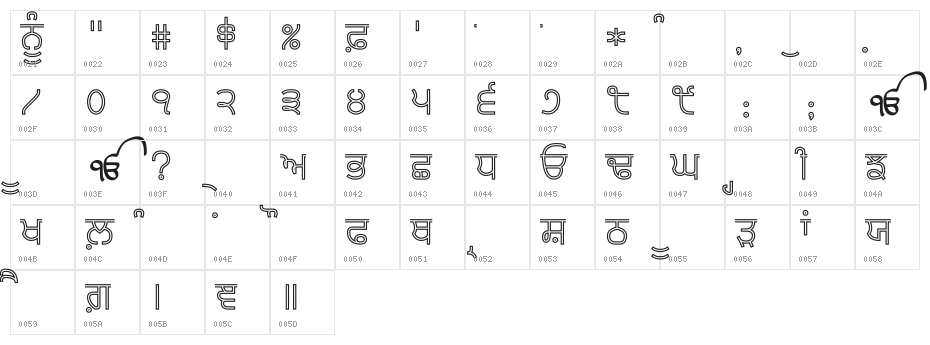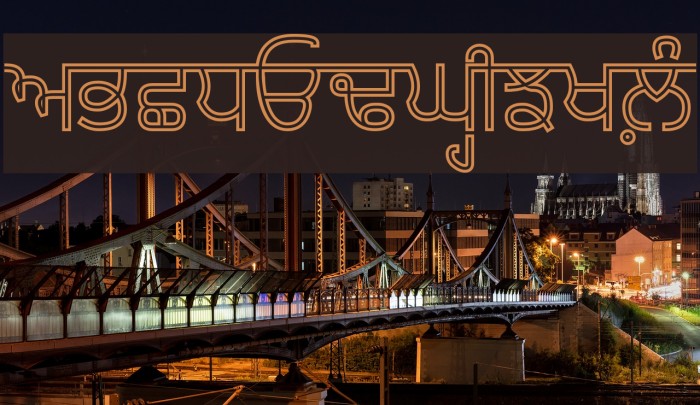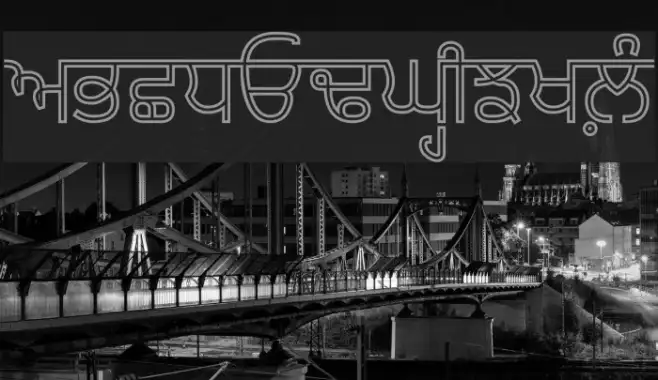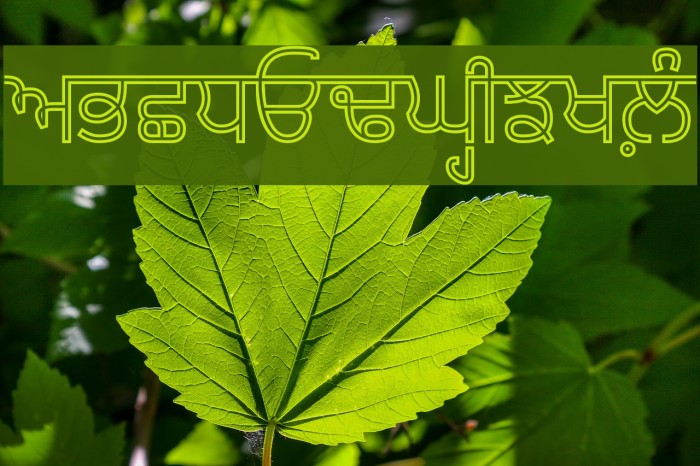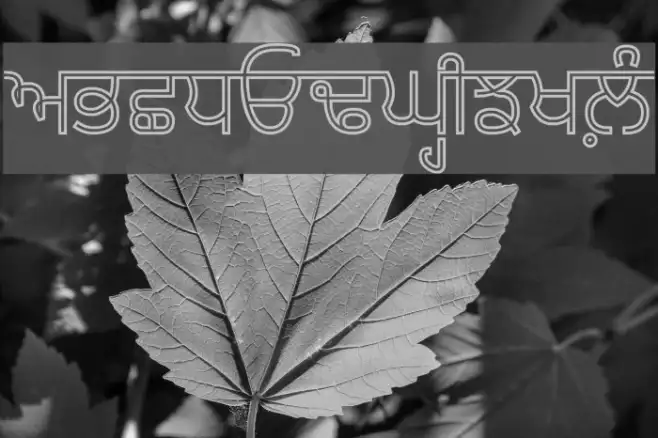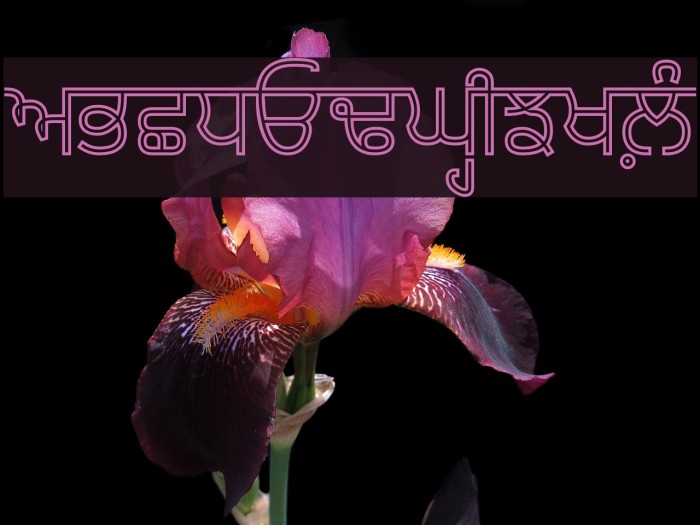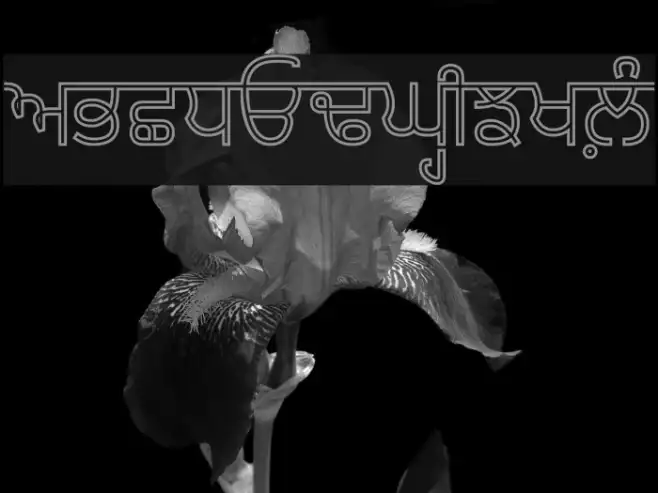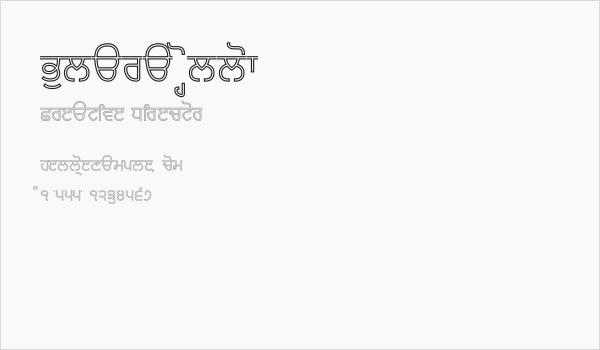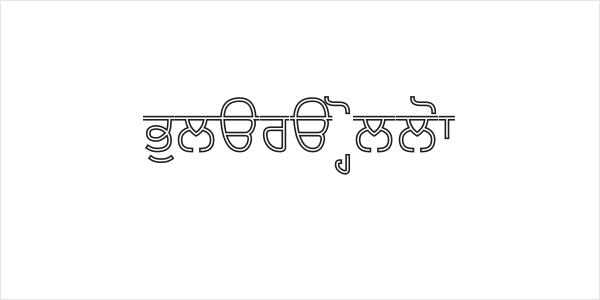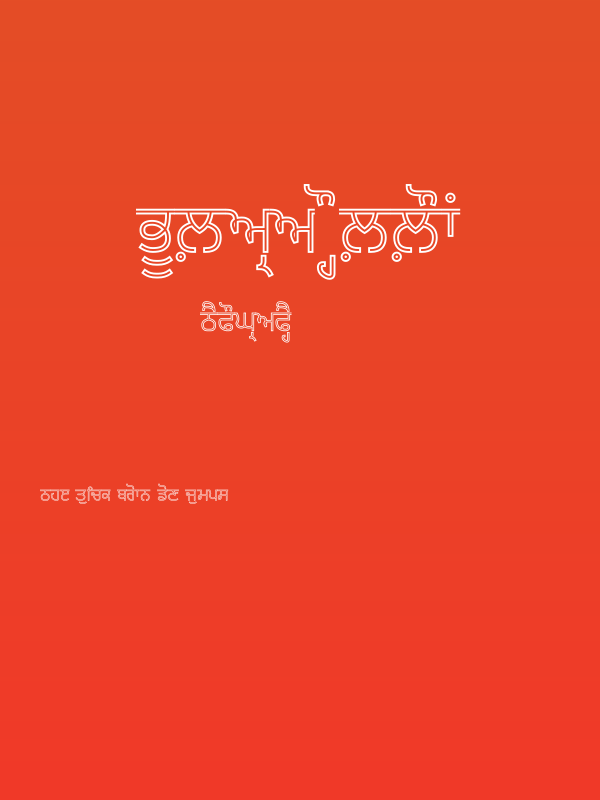
Bulara Hollow Font
Bulara Hollow Description
This font features a unique hollow design with a modern and decorative style. The characters are outlined, providing a bold yet airy appearance. The strokes are consistent in width, giving it a uniform look. The font includes a full set of characters, numbers, and special symbols, making it versatile for various uses. Its distinct style is suitable for creative projects where a standout font is needed. The spacing between characters is normal, ensuring readability while maintaining its decorative appeal.
| Use Case | Logos, Posters, Creative Designs |
| Proposed Projects | Ideal for posters, logos, and creative design projects that require a distinctive and modern look. |